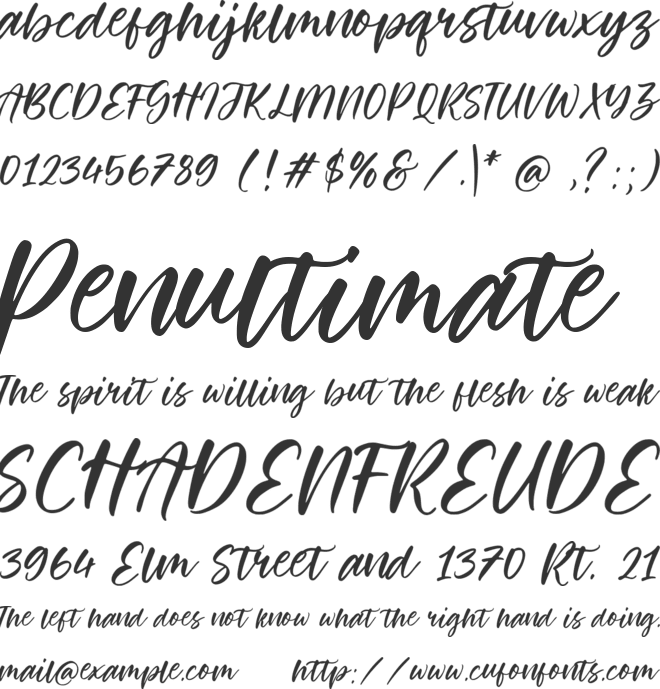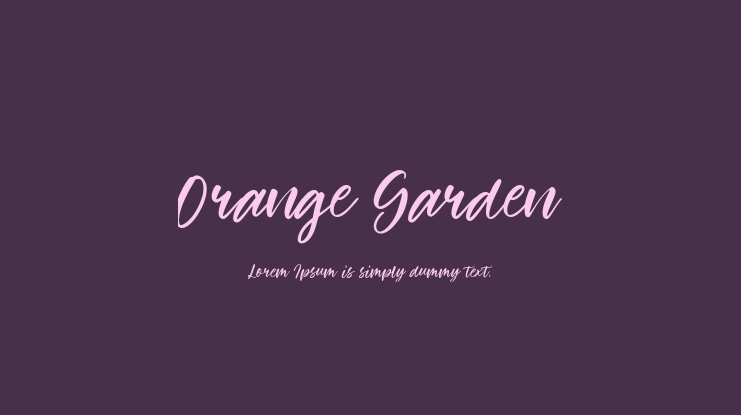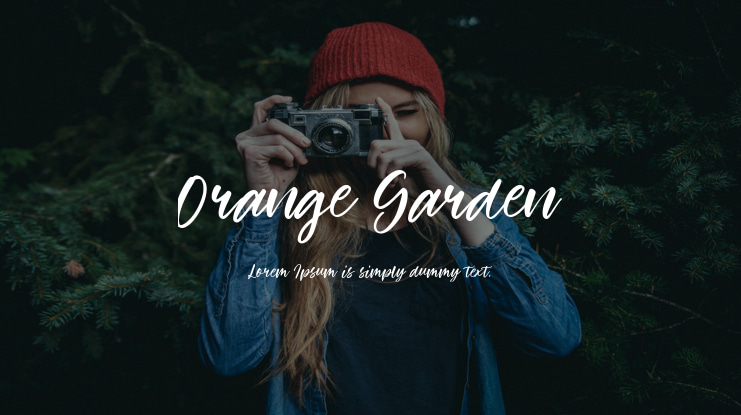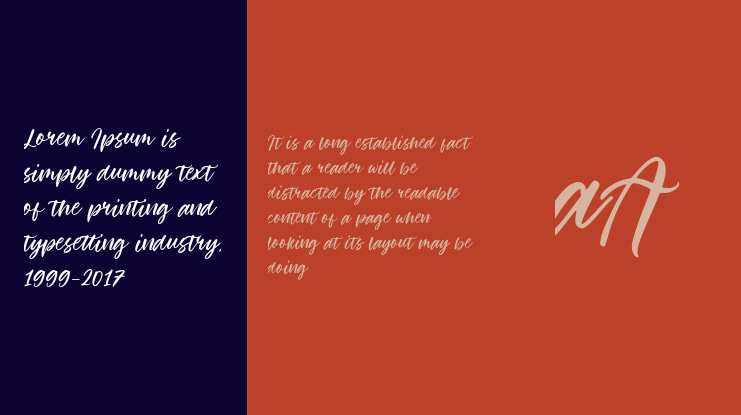
Orange Garden Font
Orange Garden is a Modern handwritten typeface that's perfect for adding a touch to your design projects! With its natural, organic feel and unique character.
Crafted with care and attention to detail, this font is incredibly versatile and can be used for a range of design projects, including logos, branding, invitations, and more. Its modern, handwritten style gives it a unique character that's sure to make an impact.
This font includes
- also multilingual support
- Ligatures